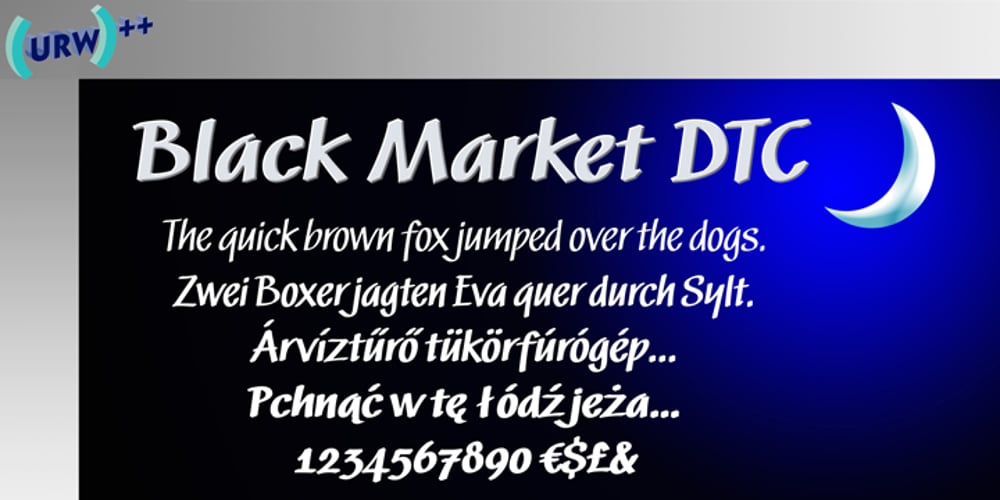
Market Font Family was designed by Volker Schnebel and published by URW Type Foundry. Market contains 4 styles and family package options. DTC Black Market is best used for price tags and signs in shops, especially in stores and markets.